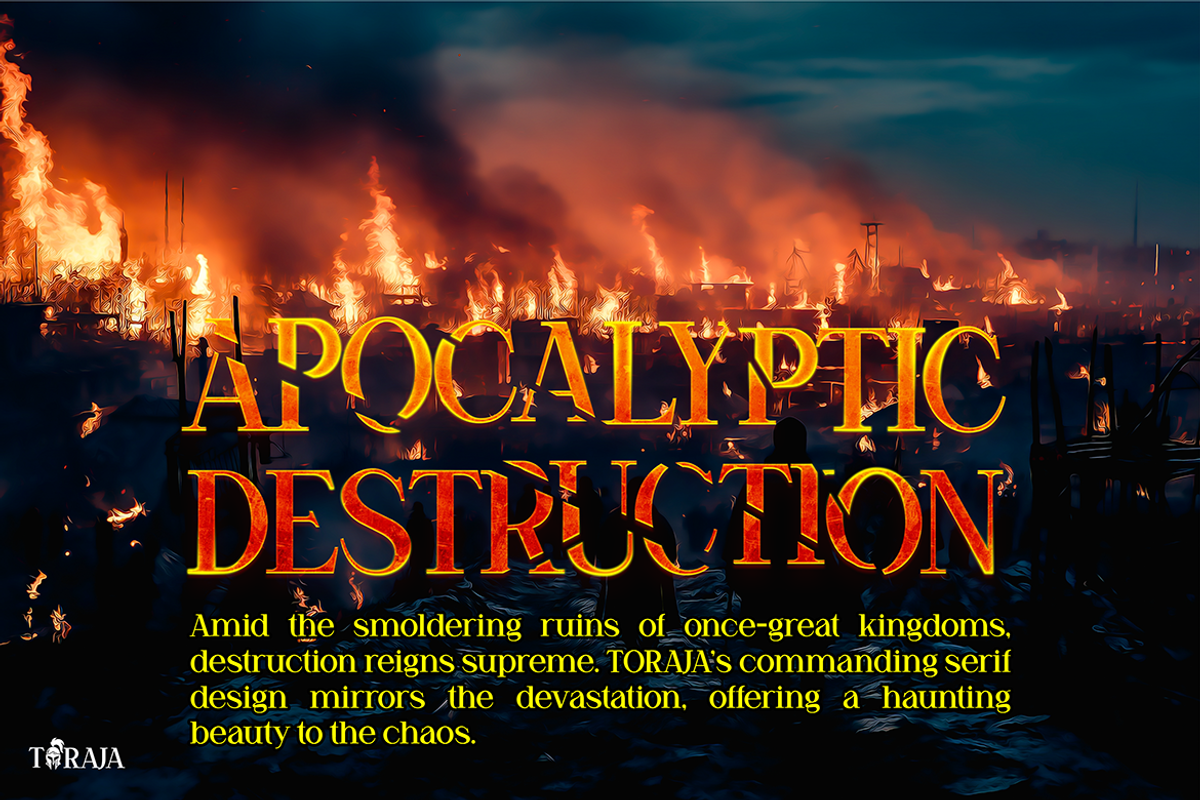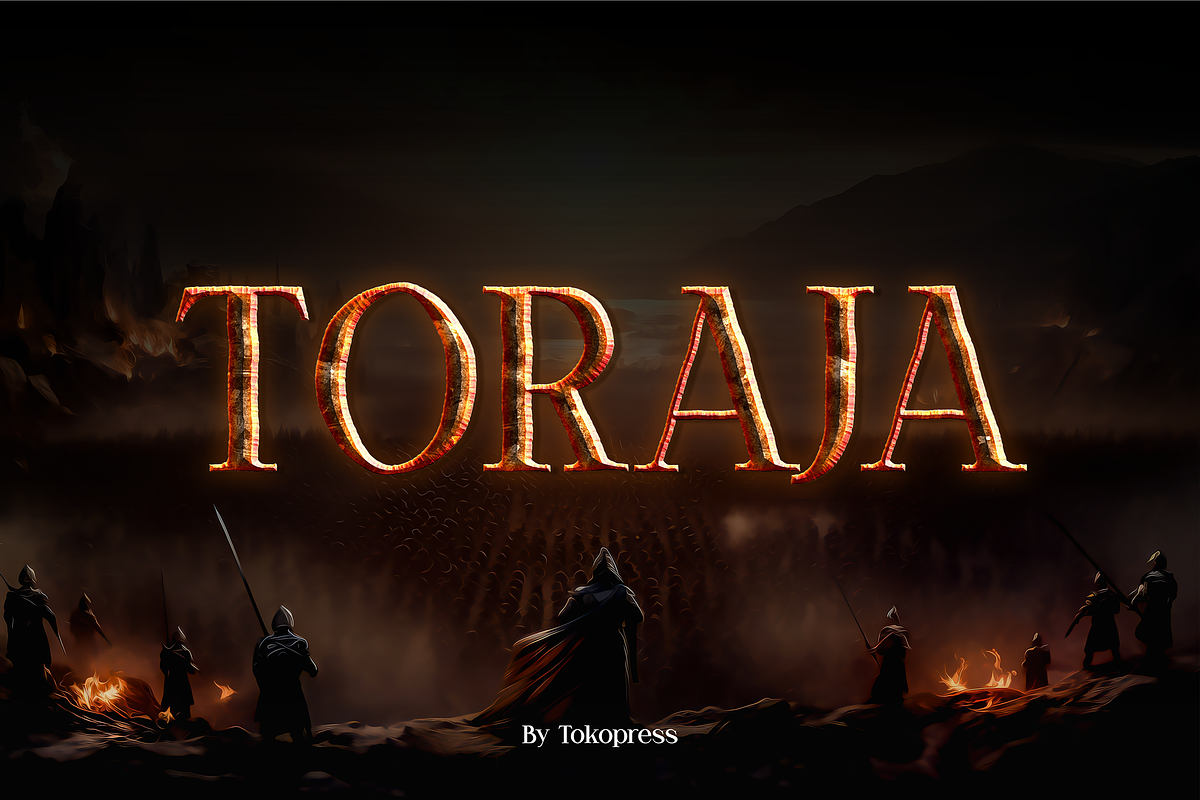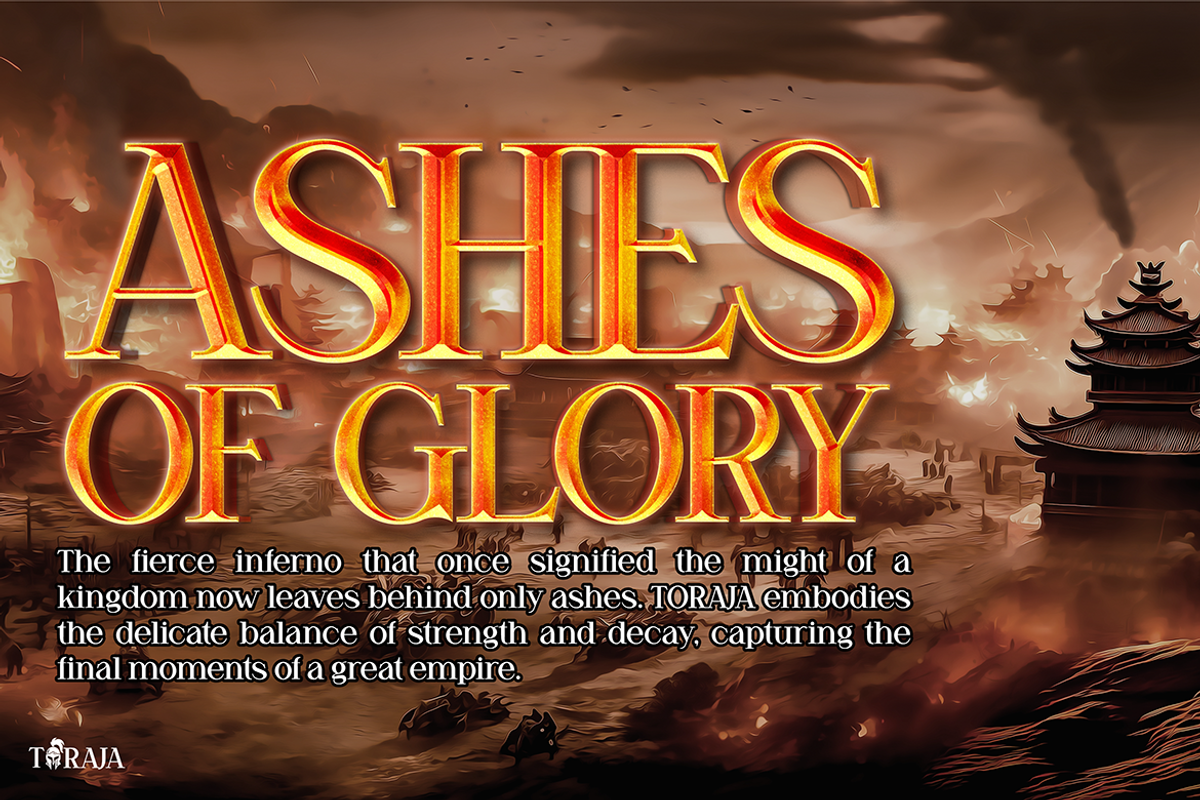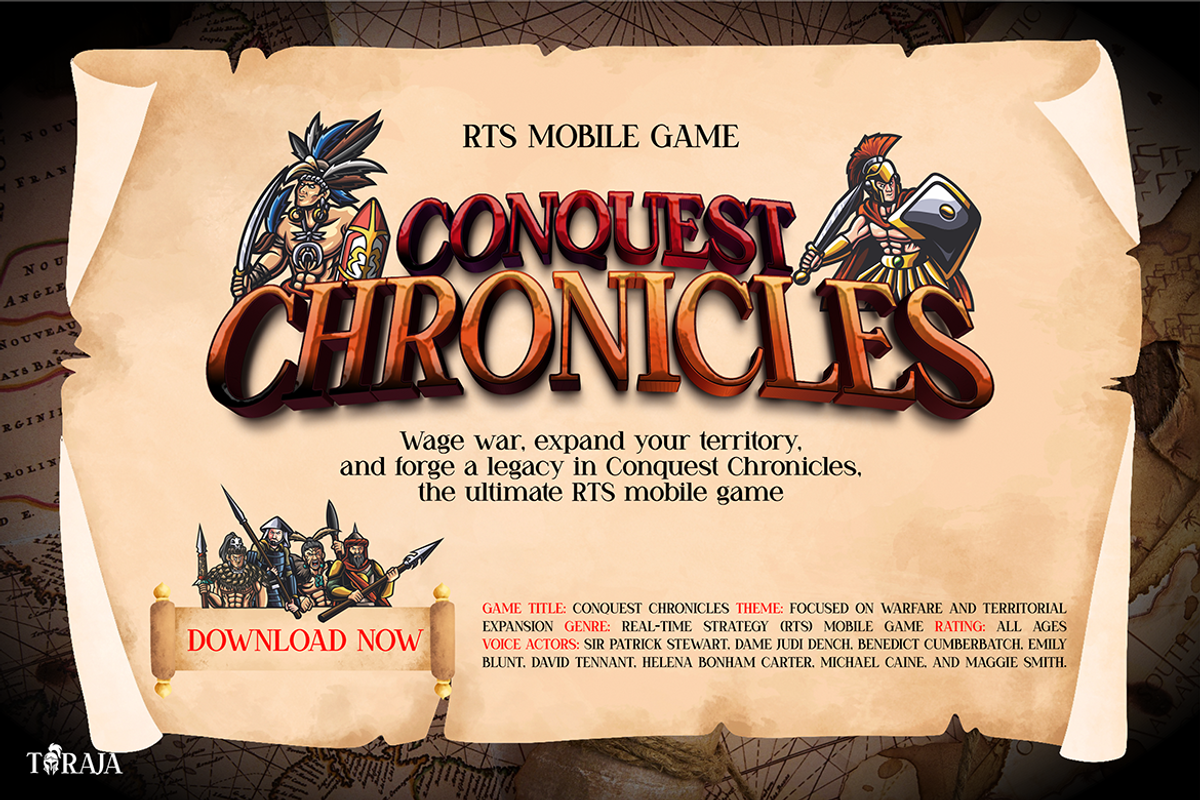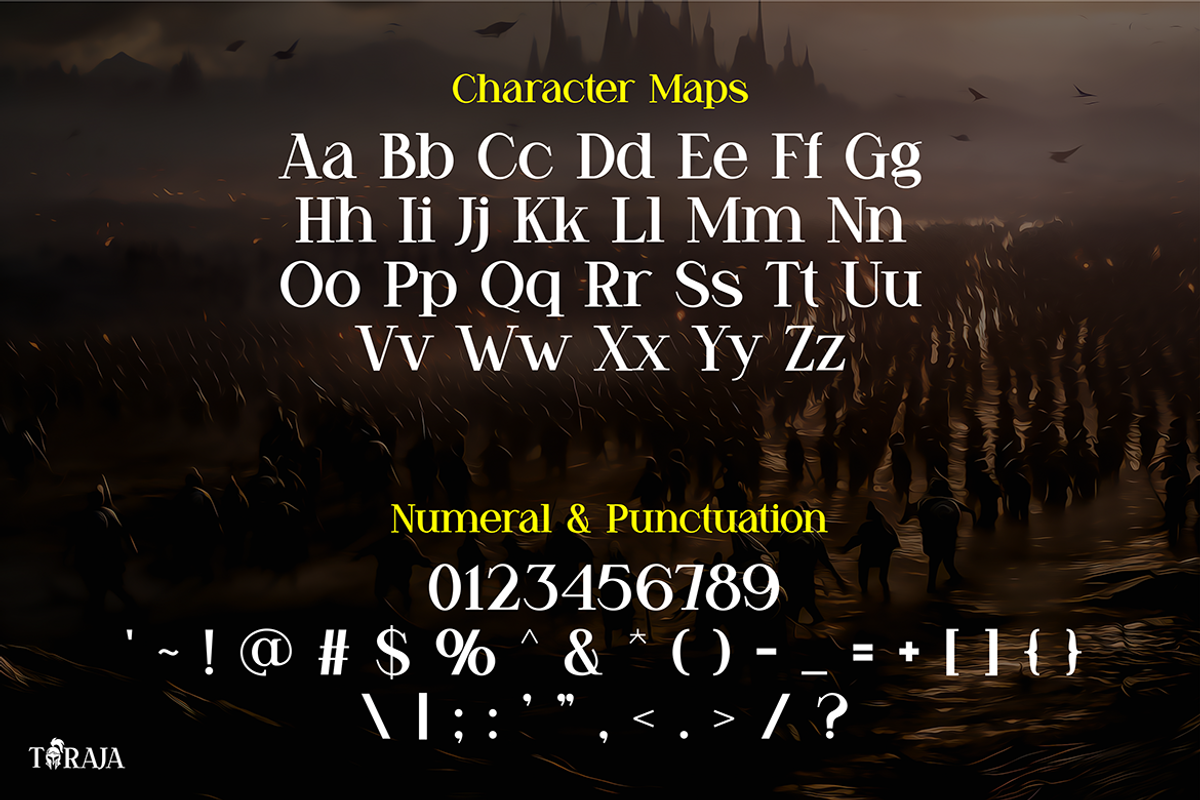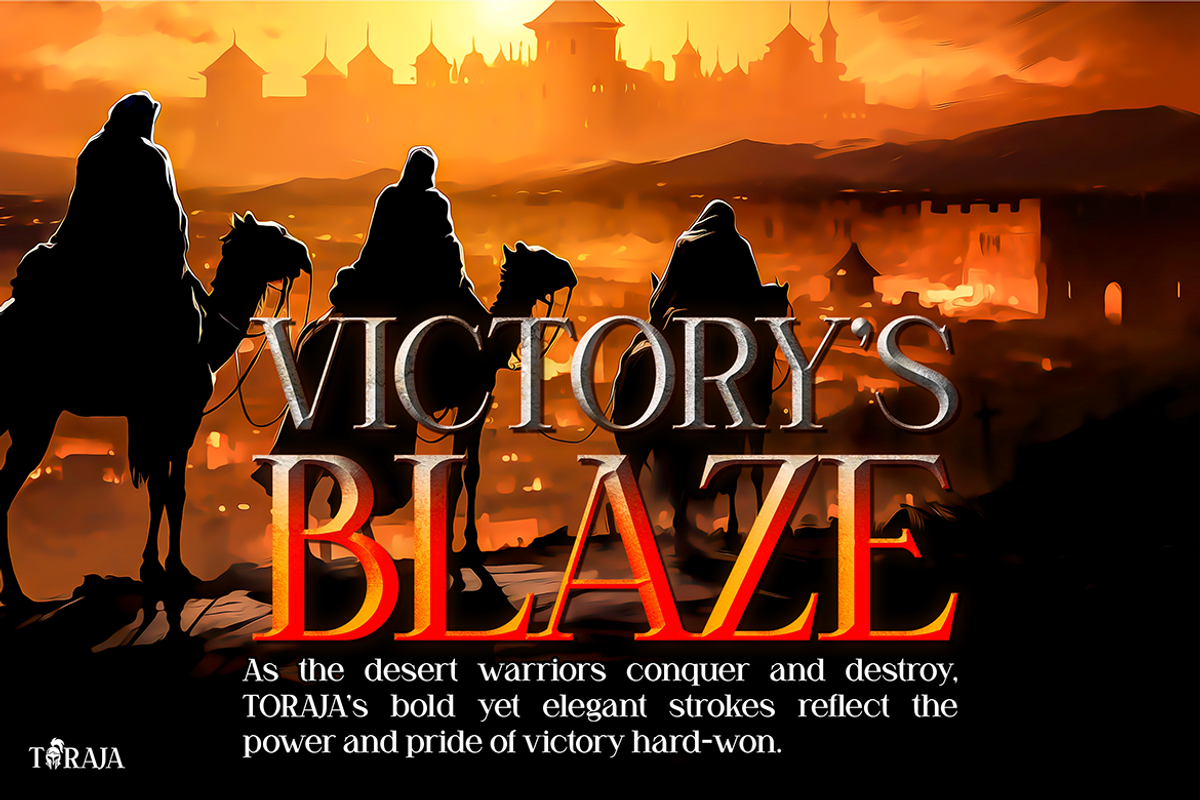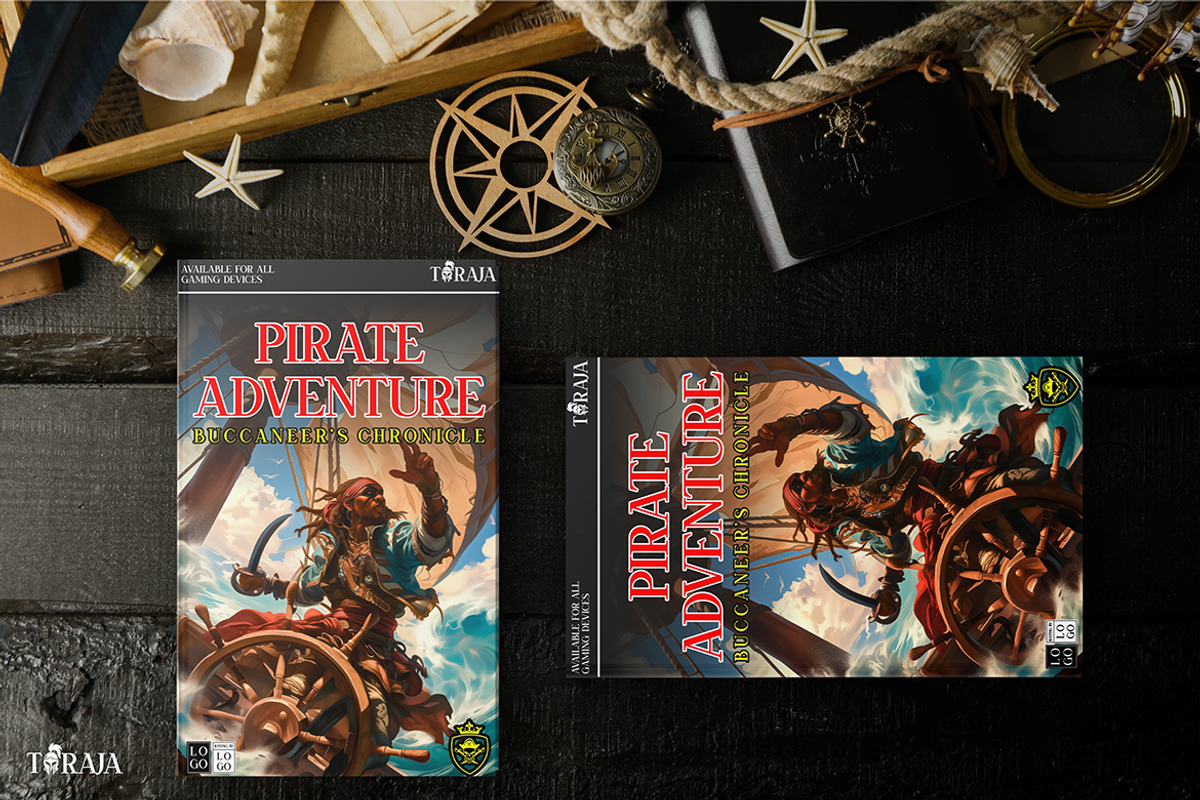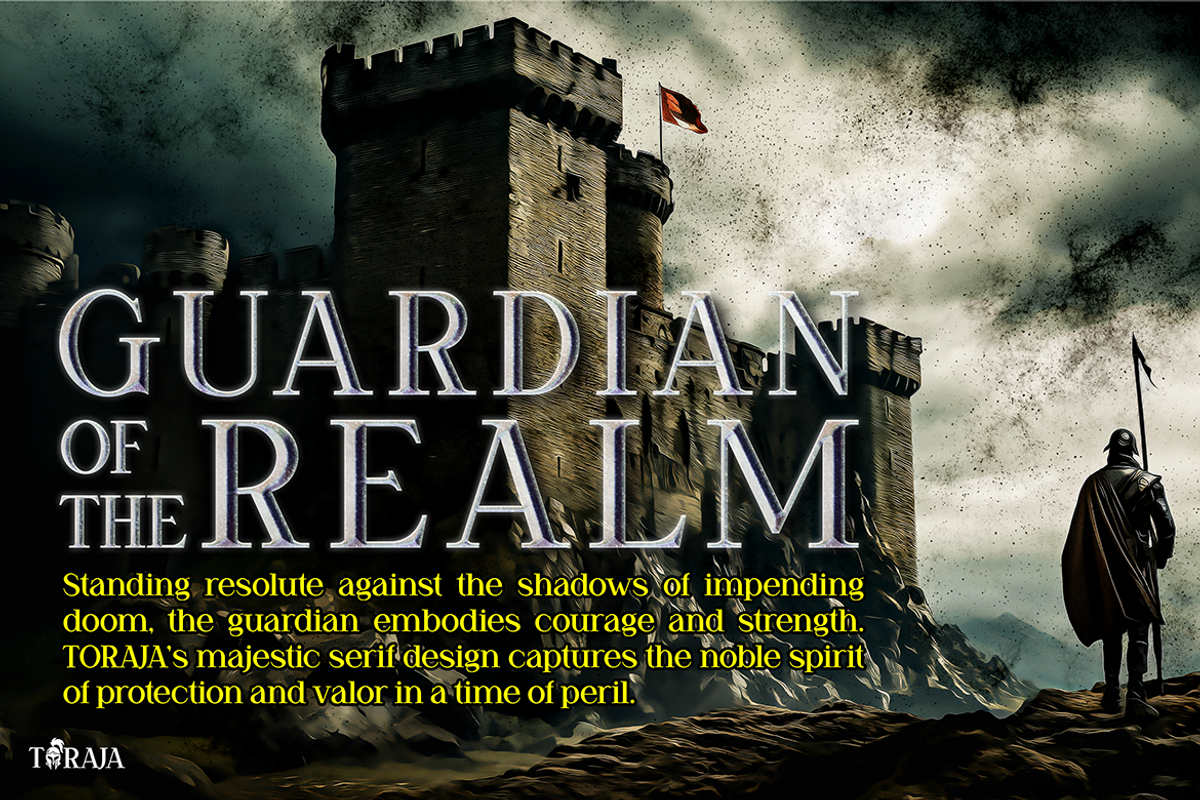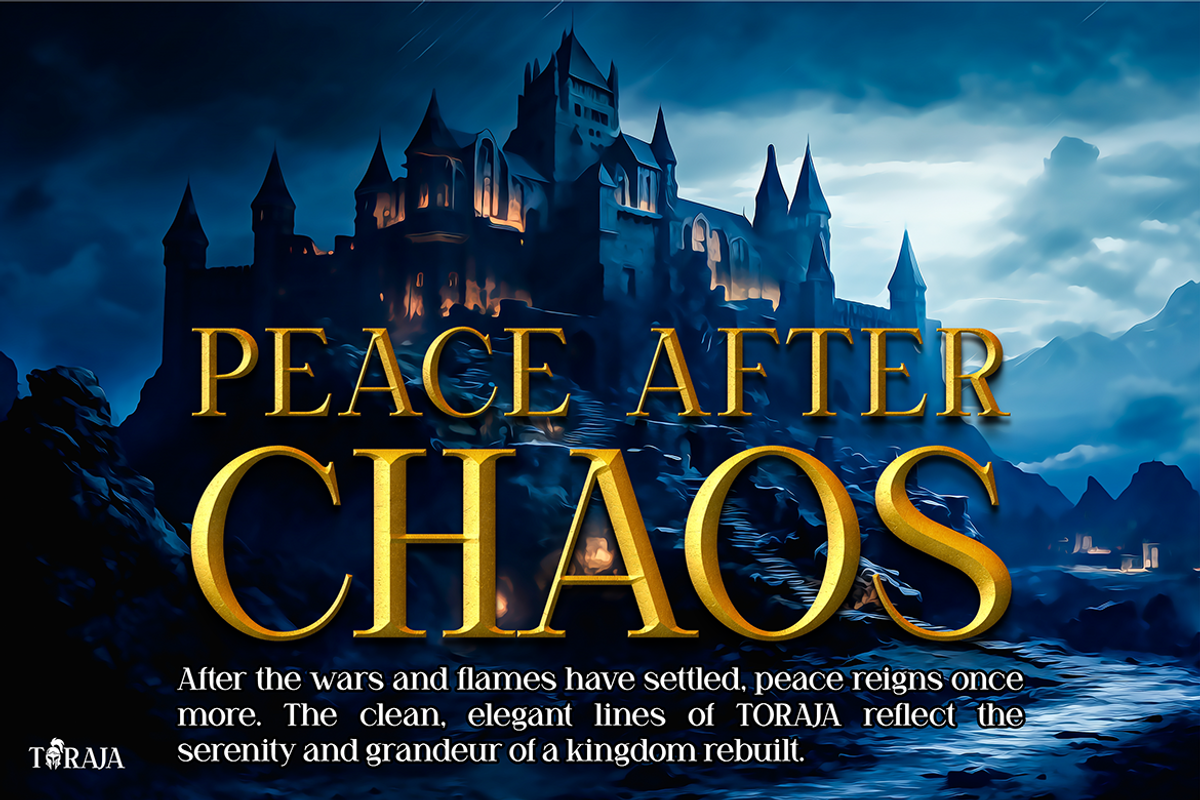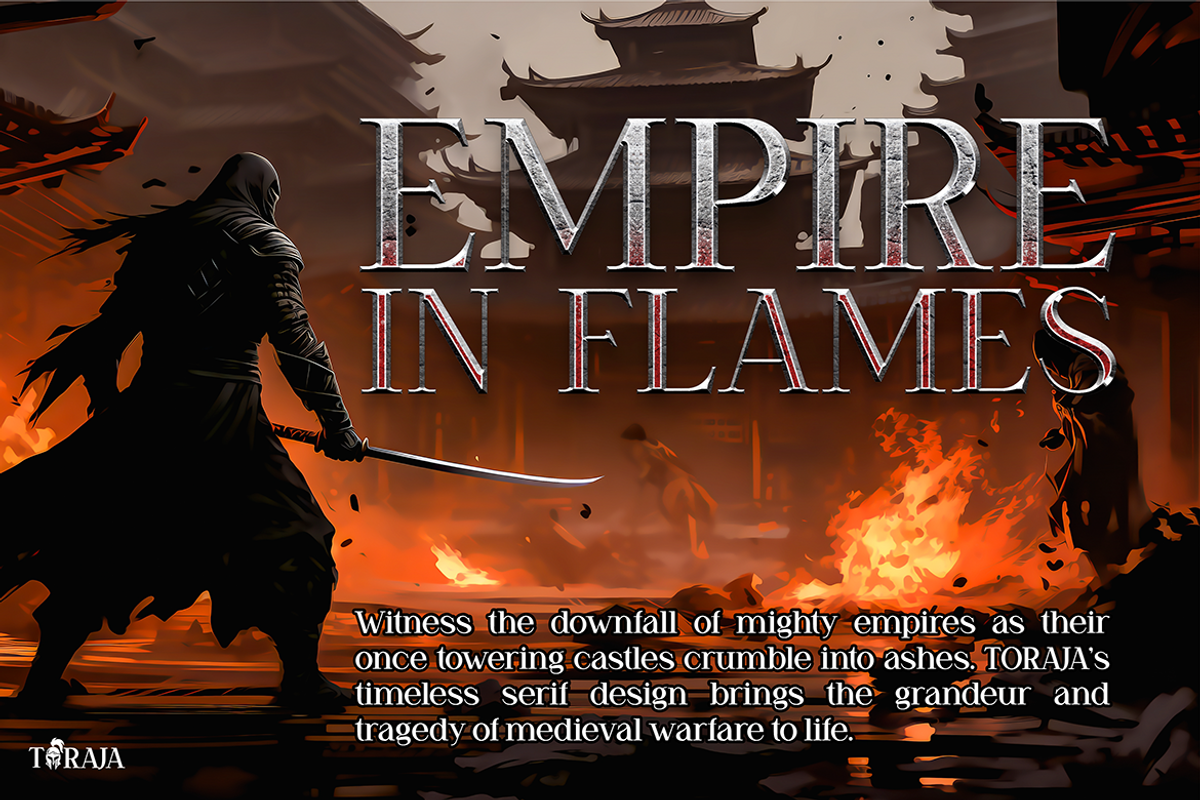
TORAJA
Toraja - Classic Adventure Awaits!
Introducing Toraja, a font that beautifully blends classic elegance with the thrill of adventure!
With its timeless design and adventurous spirit, Toraja is perfect for game titles, vintage-inspired artwork, and captivating promotional materials.
Elevate your projects with a touch of nostalgia and excitement, and let Toraja take your audience on an unforgettable journey!